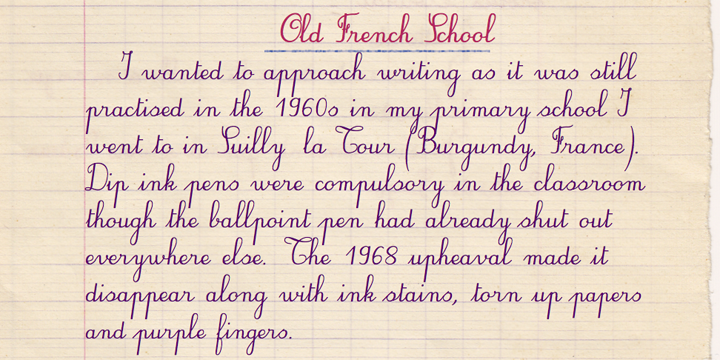
Old French School Font is perfect for French language learning materials, vintage educational publications, classical literature reproductions, traditional French restaurants, heritage school branding, antique bookstore signage, French cultural centers, historical classroom materials, vintage academic presentations, traditional calligraphy workshops, French heritage museums, and authentic European educational designs.
This font is exciting because it transports readers back to the charming atmosphere of traditional French classrooms where generations of students learned to write with careful precision and artistic flair, featuring elegantly disciplined letterforms that capture the same meticulous attention to penmanship and educational excellence that defined the French academic tradition for centuries. The refined character design embodies both the strict discipline of classical French education and the inherent elegance of French cultural sophistication, creating typography that feels authentically rooted in the time-honored traditions of French scholarship and intellectual refinement. Each letter demonstrates the kind of careful craftsmanship and cultural pride that transforms ordinary text into lessons in both language and artistry.
The Old French School Font family includes regular weight with complete character sets featuring traditional French numerals, period-appropriate punctuation marks, and decorative elements inspired by vintage French educational materials, classical penmanship exercises, and traditional French typographic heritage. Advanced versions may offer additional stylistic variants with enhanced vintage effects, alternate characters that reflect historical French writing practices, and ornamental elements that celebrate the rich educational traditions of French academic culture.
Whether you're developing French educational content, creating heritage restaurant branding, or designing authentic European cultural materials, Old French School Font Free Download provides the classical elegance and educational authenticity your project needs to honor French academic traditions while inspiring appreciation for the beauty of traditional learning and cultural refinement. This typeface transforms ordinary text into scholarly expressions that carry the weight of centuries of French educational excellence and cultural sophistication. The font's academic character makes it ideal for institutions and projects that celebrate French heritage and educational tradition. French culture enthusiasts and educational designers will appreciate how this font brings authentic French scholastic charm to their work with its genuinely traditional and educationally inspired character.